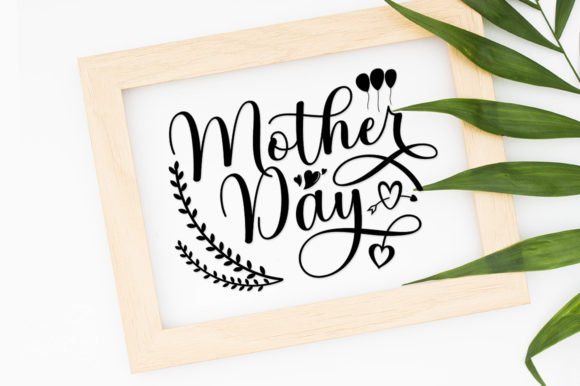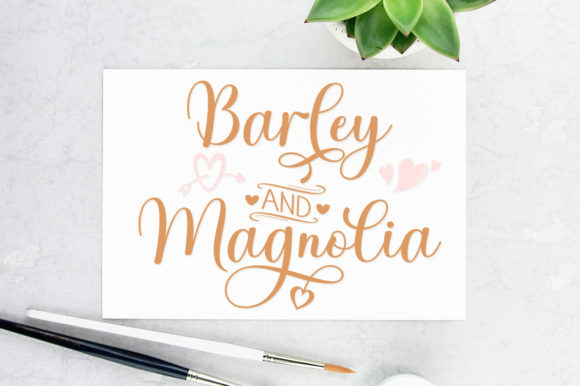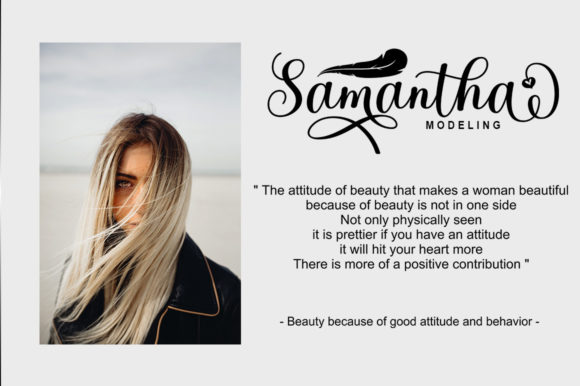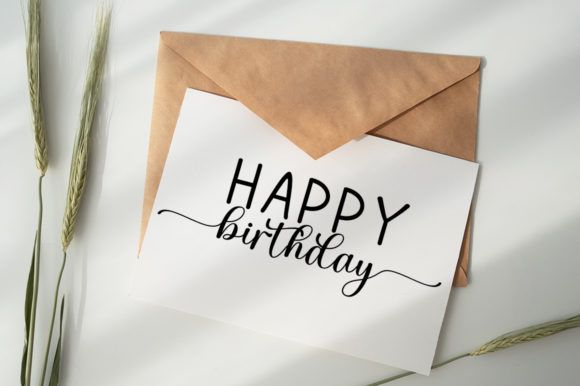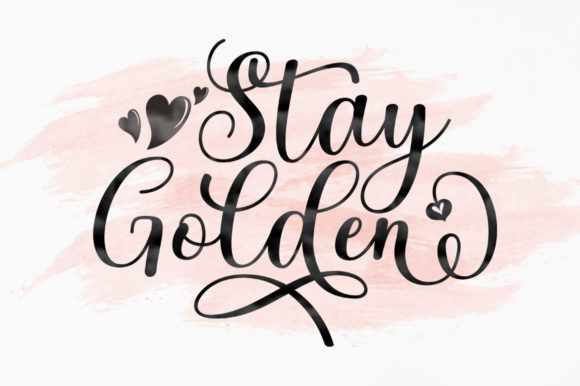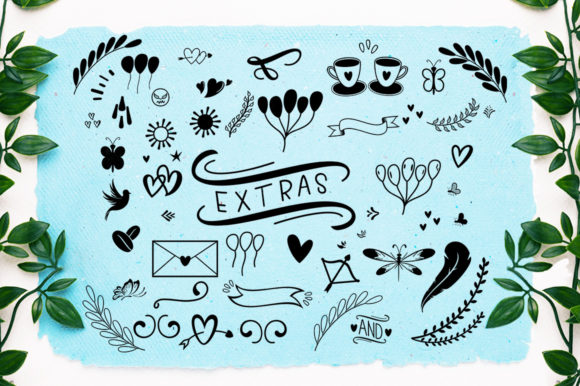
About Brilliant Soulmates Font
Brilliant Soulmates is a romantic and delicate script font that adds a touch of elegance and luxury to any design project. Its flowing characters dance along the baseline, creating a graceful and charming appearance. This font is perfect for creating romantic invitations, love letters, wedding stationery, branding, and more.
With its intricate details and beautiful ligatures, Brilliant Soulmates allows you to create stunning and unique designs. The PUA encoding ensures easy access to all the amazing glyphs and ligatures available in the font, allowing you to add decorative elements and swashes effortlessly.
Whether you’re designing wedding invitations, greeting cards, or love-themed artwork, Brilliant Soulmates will elevate your creations and bring a sense of sophistication and beauty. Its romantic and dainty style adds a touch of elegance to your designs, making them stand out and leaving a lasting impression.
The versatility of Brilliant Soulmates makes it suitable for a wide range of projects. From logos and branding to social media graphics and quotes, this font adds a luxurious spark and a romantic feel. Its charming and graceful letterforms bring a sense of beauty and refinement to your designs, capturing the essence of love and romance.
In summary, Brilliant Soulmates is a romantic and dainty script font that adds a touch of luxury to any design project. With its dancing characters, intricate details, and PUA encoding, it provides you with the tools to create stunning and personalized designs. Whether you’re creating wedding invitations, love-themed artwork, or branding materials, Brilliant Soulmates will enhance your designs and evoke a sense of elegance and romance.